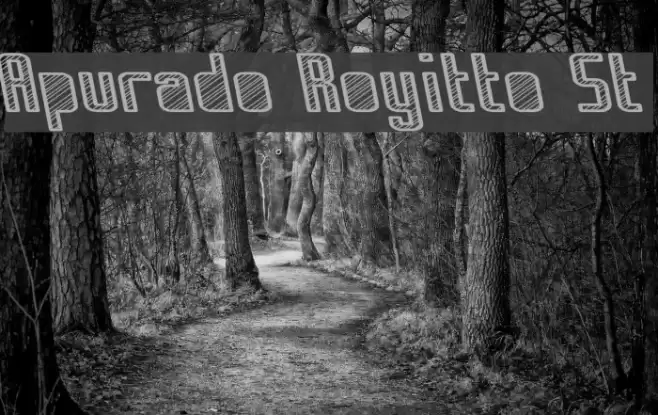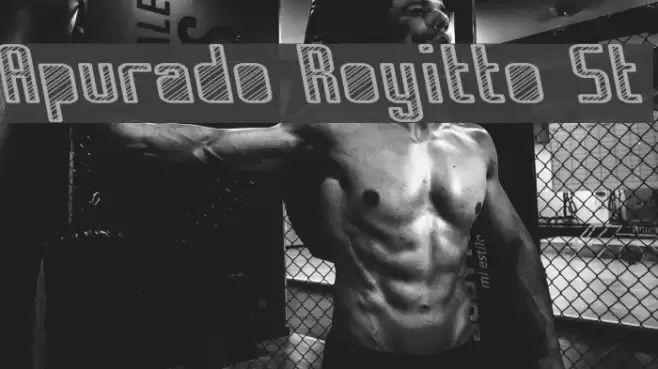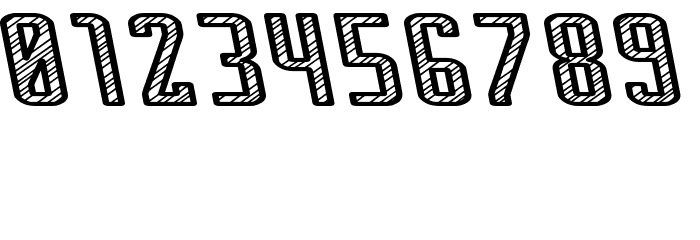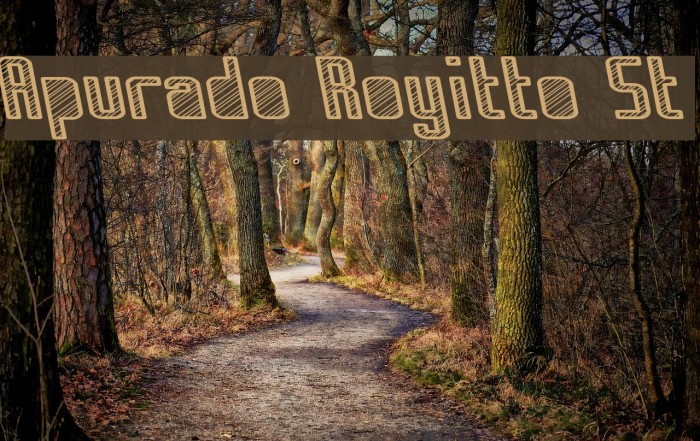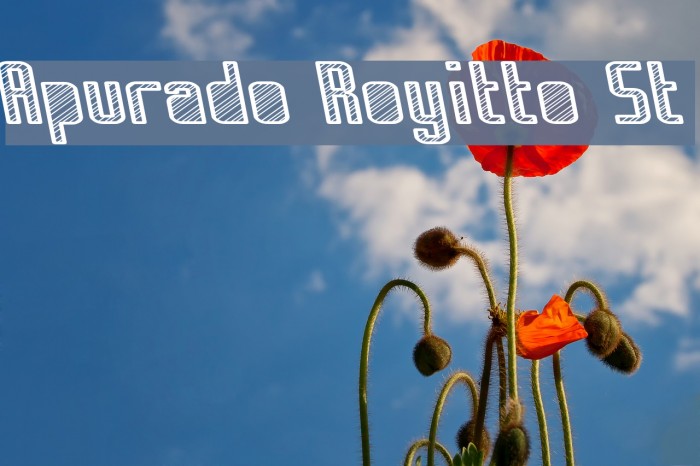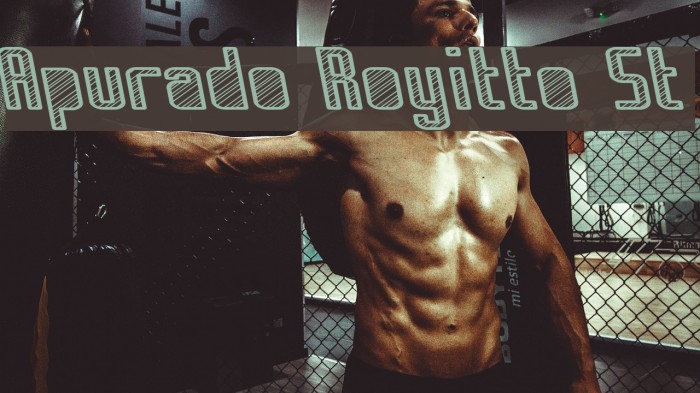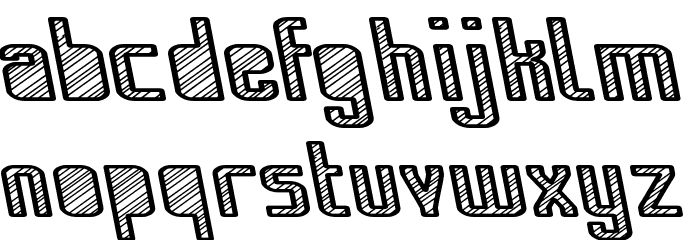
Apurado Royitto St Font
Apurado Royitto St Description
This font features a unique, hand-drawn style with a bold, outlined appearance. Each character is filled with diagonal lines, giving it a textured, sketch-like effect. The uppercase and lowercase letters maintain a consistent design, with rounded edges and a playful, informal look. The numbers and special characters follow the same aesthetic, making the font cohesive and visually appealing. Its decorative nature makes it stand out, ideal for projects that require a touch of creativity and flair.
A bold, hand-drawn font with textured, sketch-like characters from Decorative fonts.
- Proposed Projects: Ideal for posters, creative branding, children's books, and artistic projects.